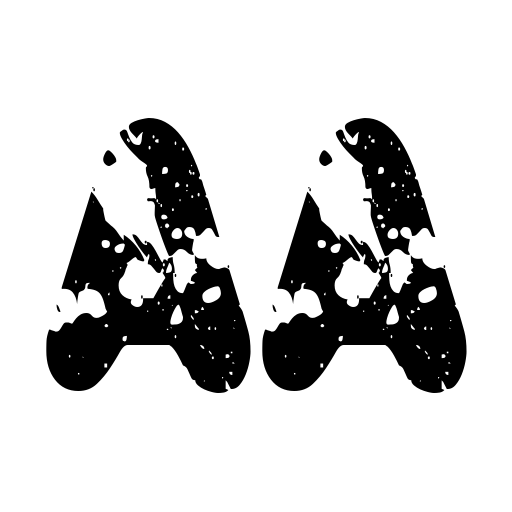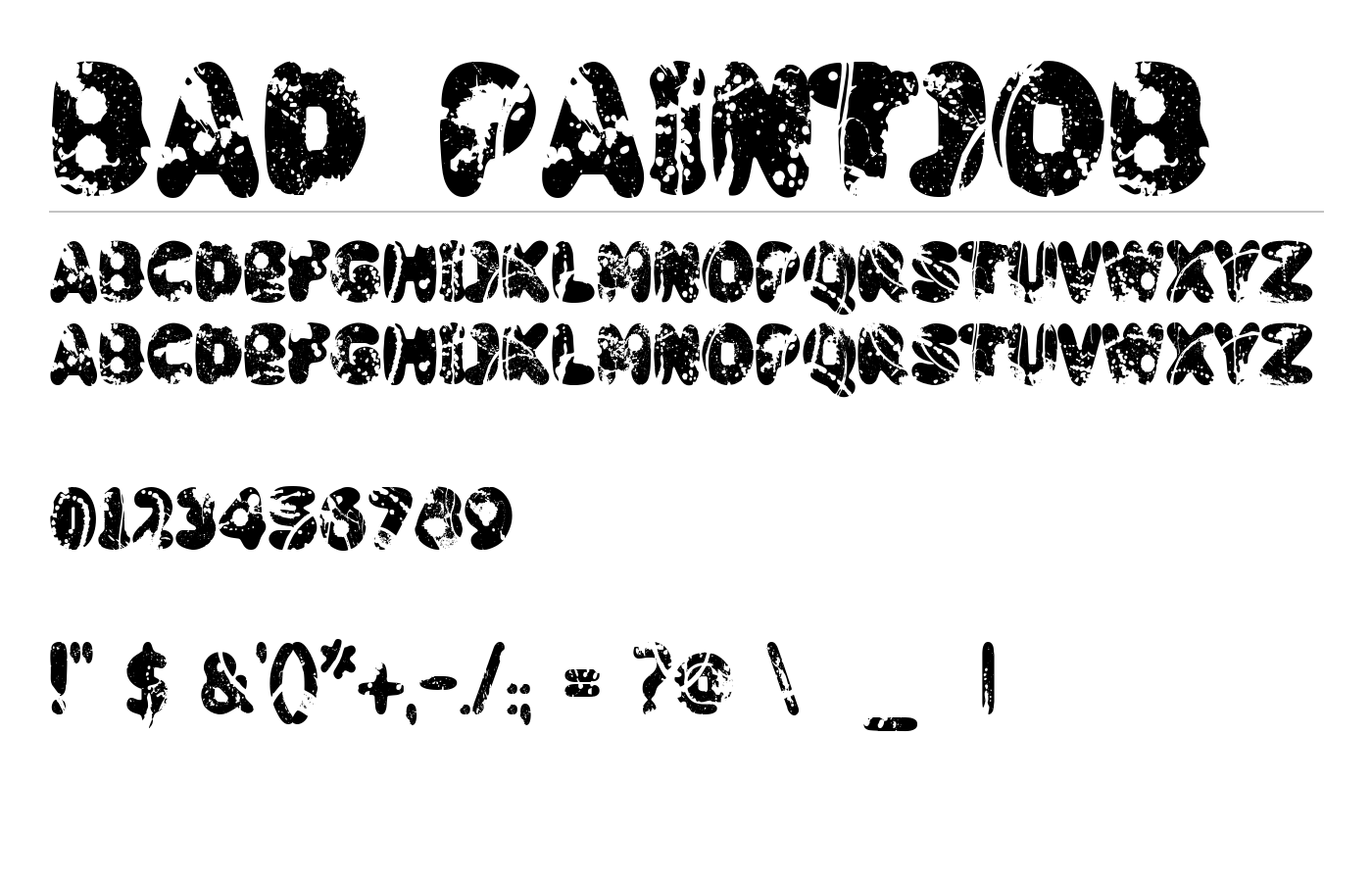
Bad Paintjob is a bold, decorative sans serif font with a distressed, textured look that mimics a worn or uneven paint finish. Its chunky letterforms with rough, irregular edges create a lively, edgy style perfect for eye-catching headlines, posters, or designs that want to convey a grungy, urban, or handmade vibe. This font works best in large sizes where its unique texture and bold presence can stand out and add character.
Bad Paintjob Font
About Bad Paintjob Font